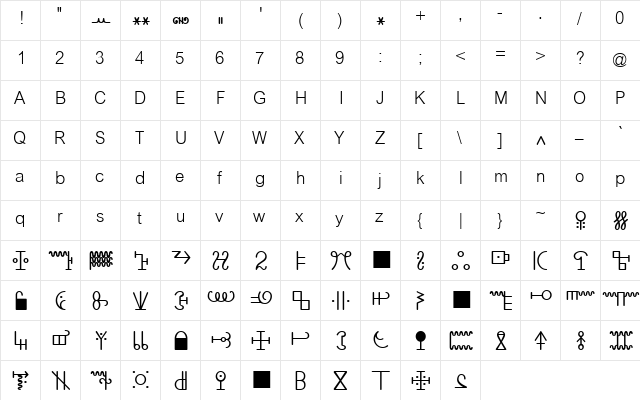
JG Vai A Regular
Design Context for JG Vai A Typeface
JG Vai A offers clean, dependable letterforms without strong stylistic allegiance, making it a practical choice for designers who need flexibility.